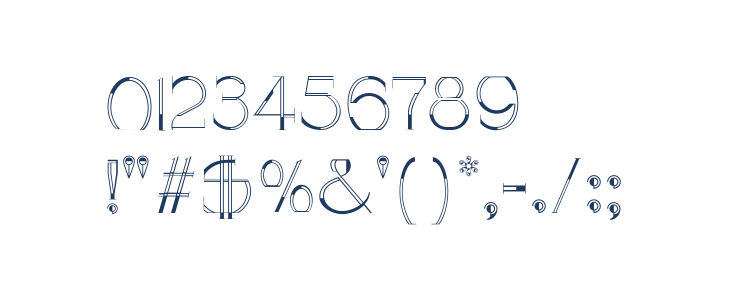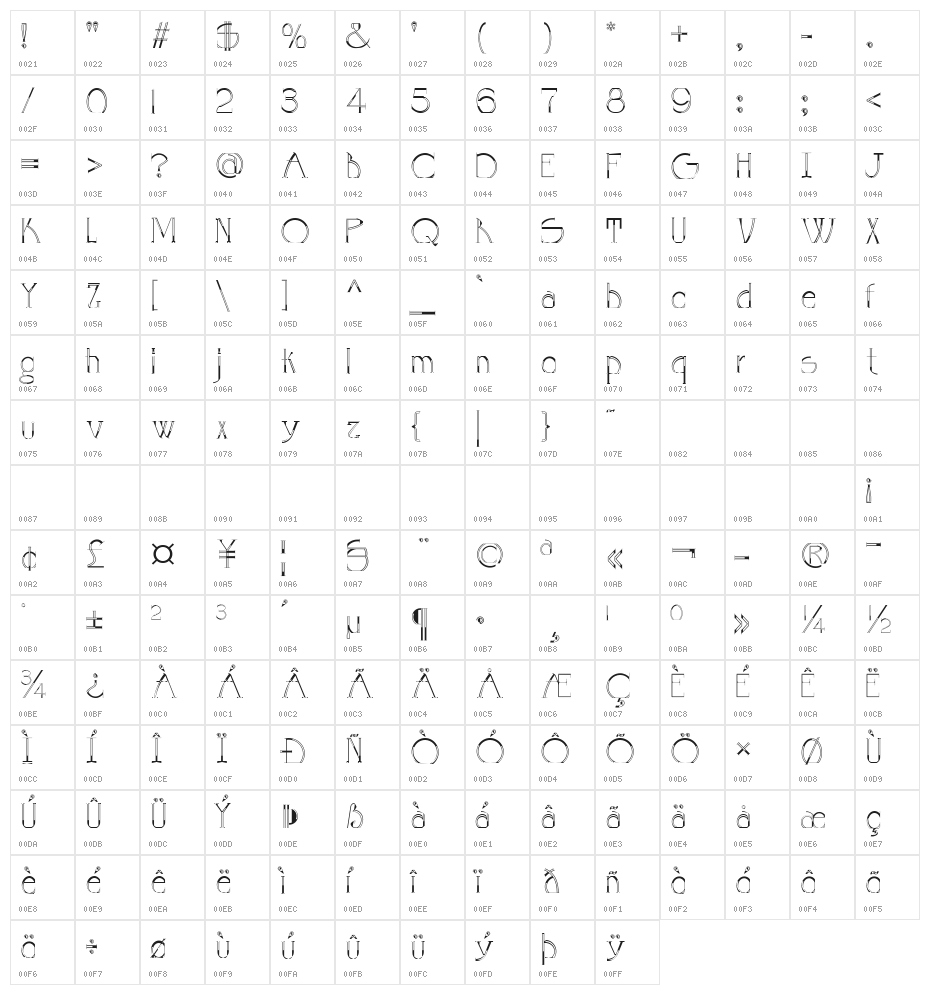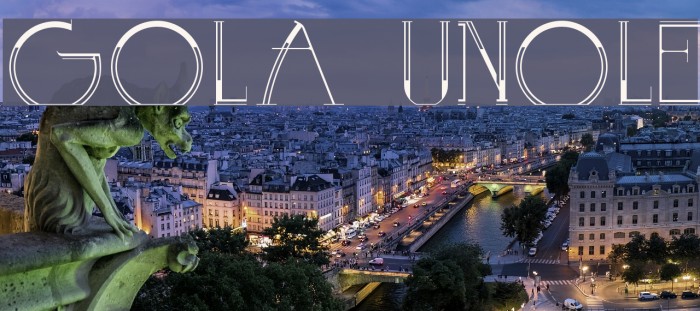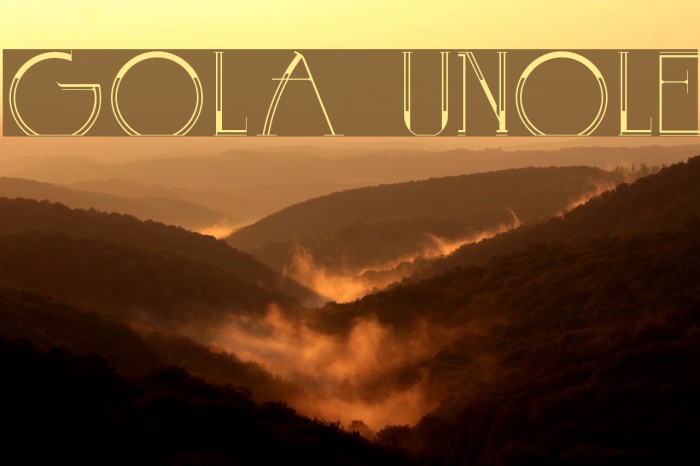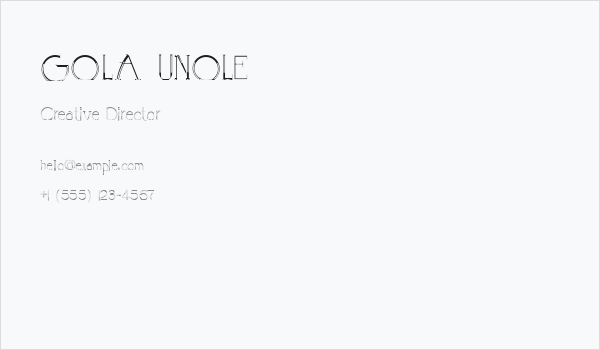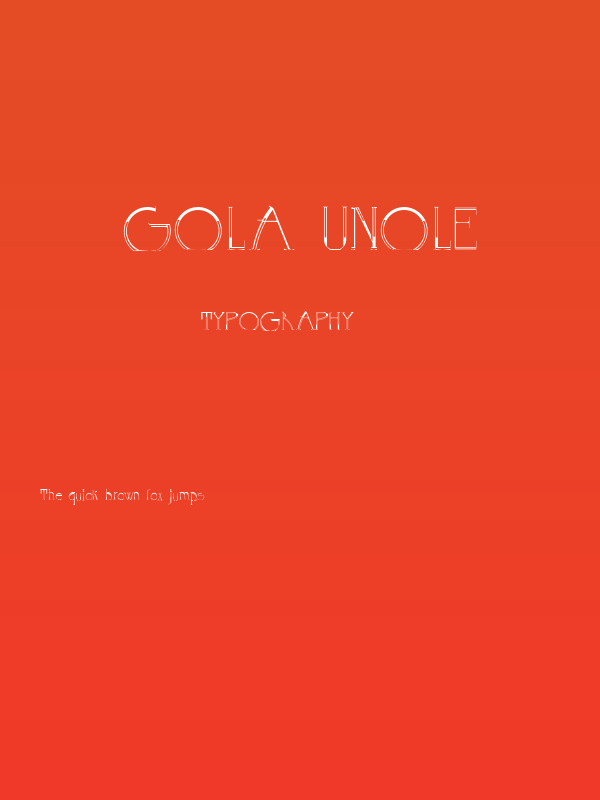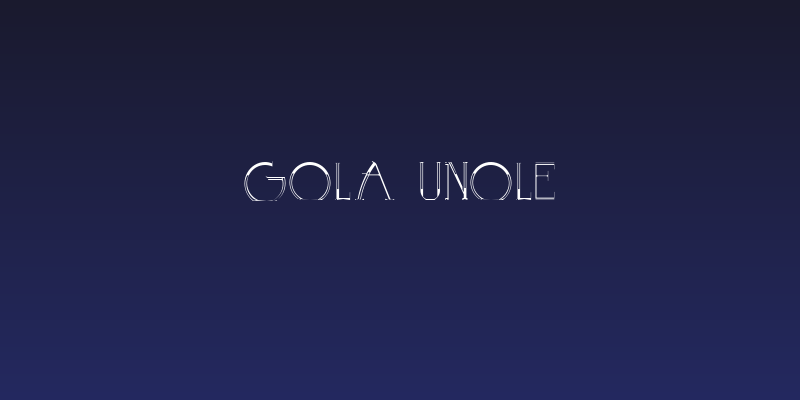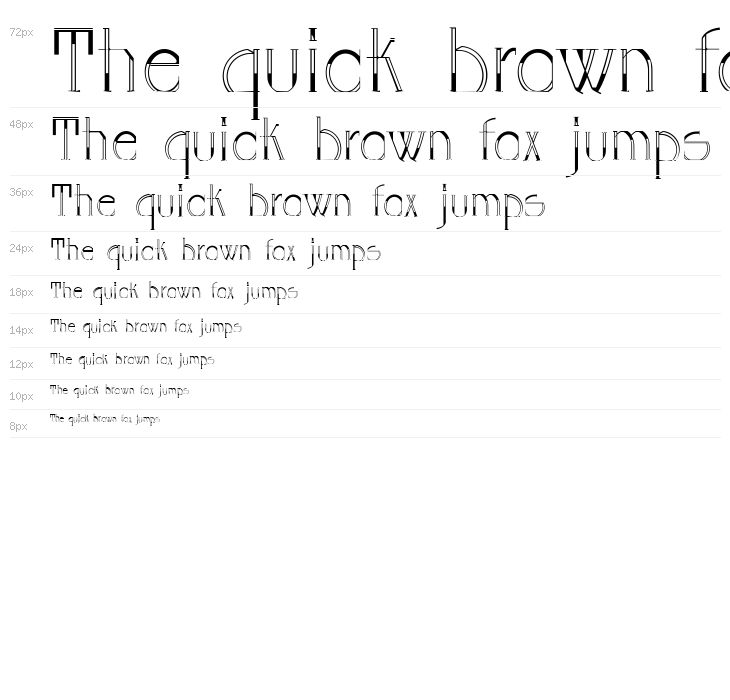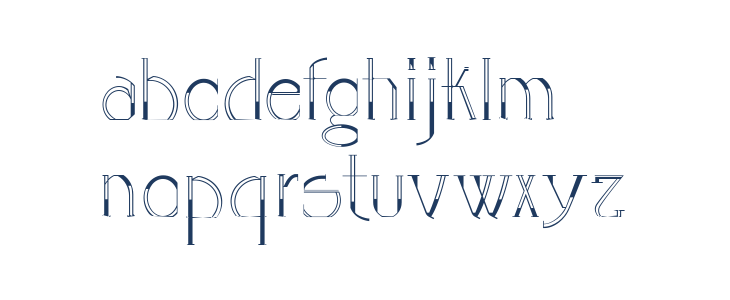
GOLA UNOLE Font
GOLA UNOLE Description
This font features a unique and modern design with a blend of geometric and decorative elements. The uppercase and lowercase letters exhibit a distinct split in the strokes, creating a dynamic and eye-catching effect. The numerals maintain a consistent style with the letters, offering a cohesive look. The special characters are designed with the same attention to detail, ensuring they complement the overall aesthetic. The font's structure is both bold and elegant, making it suitable for various creative applications. Its high contrast in stroke thickness adds to its visual appeal, while the character spacing is balanced, providing readability and style.